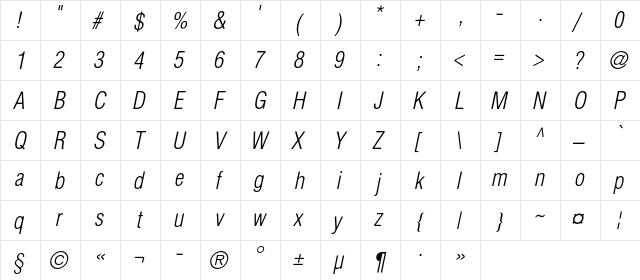
HeliosCondLight Italic Font Preview
Design Context for HeliosCondLight Typeface
HeliosCondLight is a composed and adaptable typeface that performs quietly and consistently across a wide range of design contexts. The dynamic lean of this cut emphasises speed and emphasis in any layout. The delicate stroke weight brings airiness and refinement to layouts. The condensed width makes it efficient for tight spaces without sacrificing legibility.
Pro Tip: Use HeliosCondLight for emphasis, pull quotes, and subheadings where its slanted energy can add rhythm to the layout.